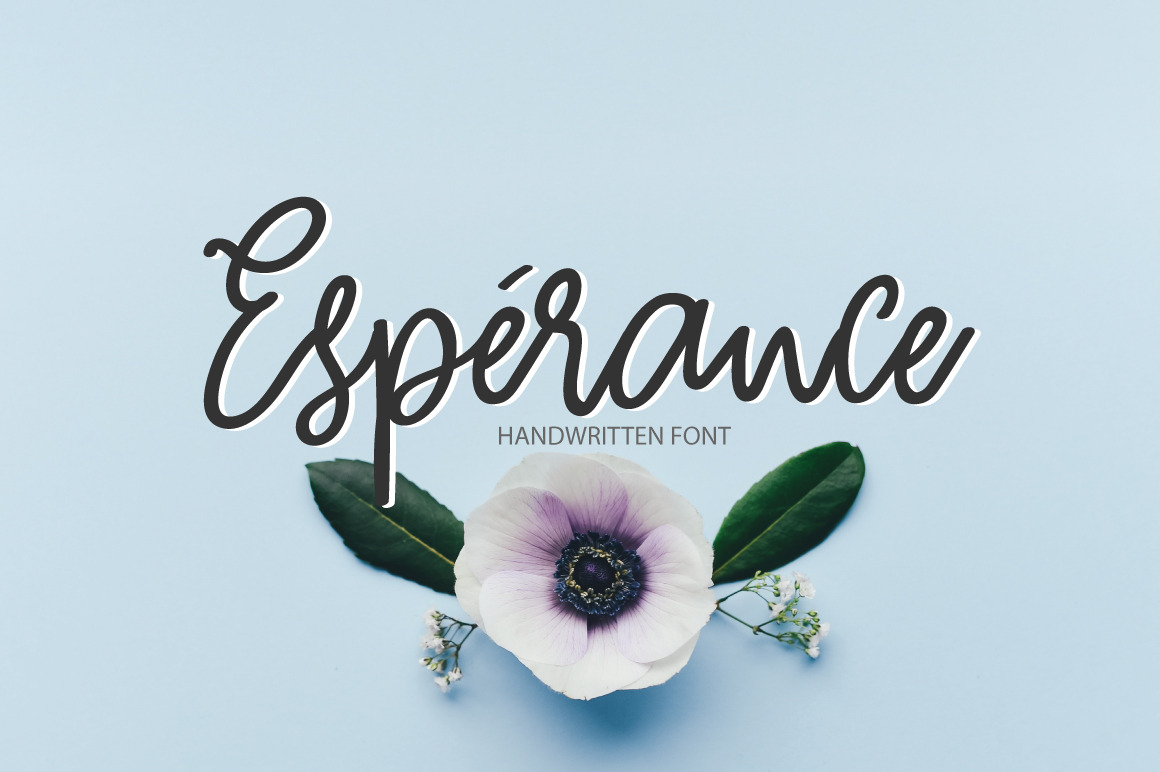
Esperance | Handwritten Font
Esperance
it's handwritten script font.
This font a perfect for every project, wedding invitation or your blog. Also with their help, you can create a logo or beautiful frame for your home. Or just use for your small business, book covers, stationery and more.